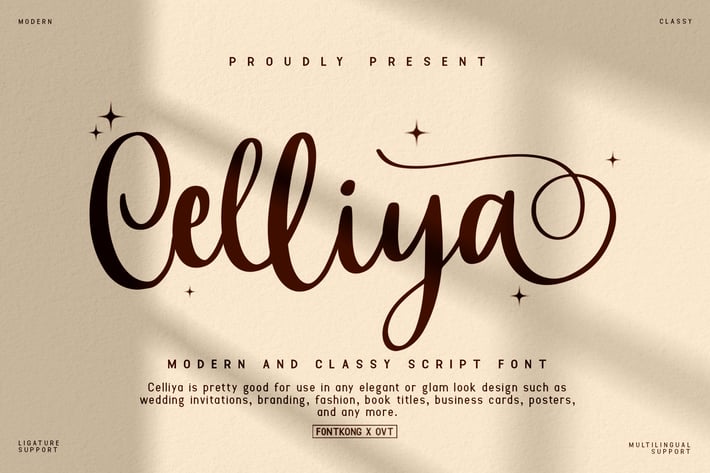
Celliya - Modern and Classy Script Font
Introducing "Celliya," a modern and classy script font that seamlessly blends elegance with contemporary flair. Designed for those who seek a touch of sophistication in their projects, Celliya offers fluid, clean lines and a versatile script style that is perfect for invitations, branding, advertisements, and more.
With its delicate curves and refined strokes, Celliya provides an effortless readability that enhances any text it adorns. This font comes with a full set of lowercase and uppercase letters, numerals, a large range of punctuation marks, and multilingual support to accommodate a diverse set of languages and scripts.
Ideal for creating standout logos, attractive web banners, and captivating promotional materials, Celliya ensures that your designs not only look stunning but also carry a unique personality. Whether you're designing for a luxurious brand or a casual blog, Celliya adapts to your needs to help you make a memorable impact.